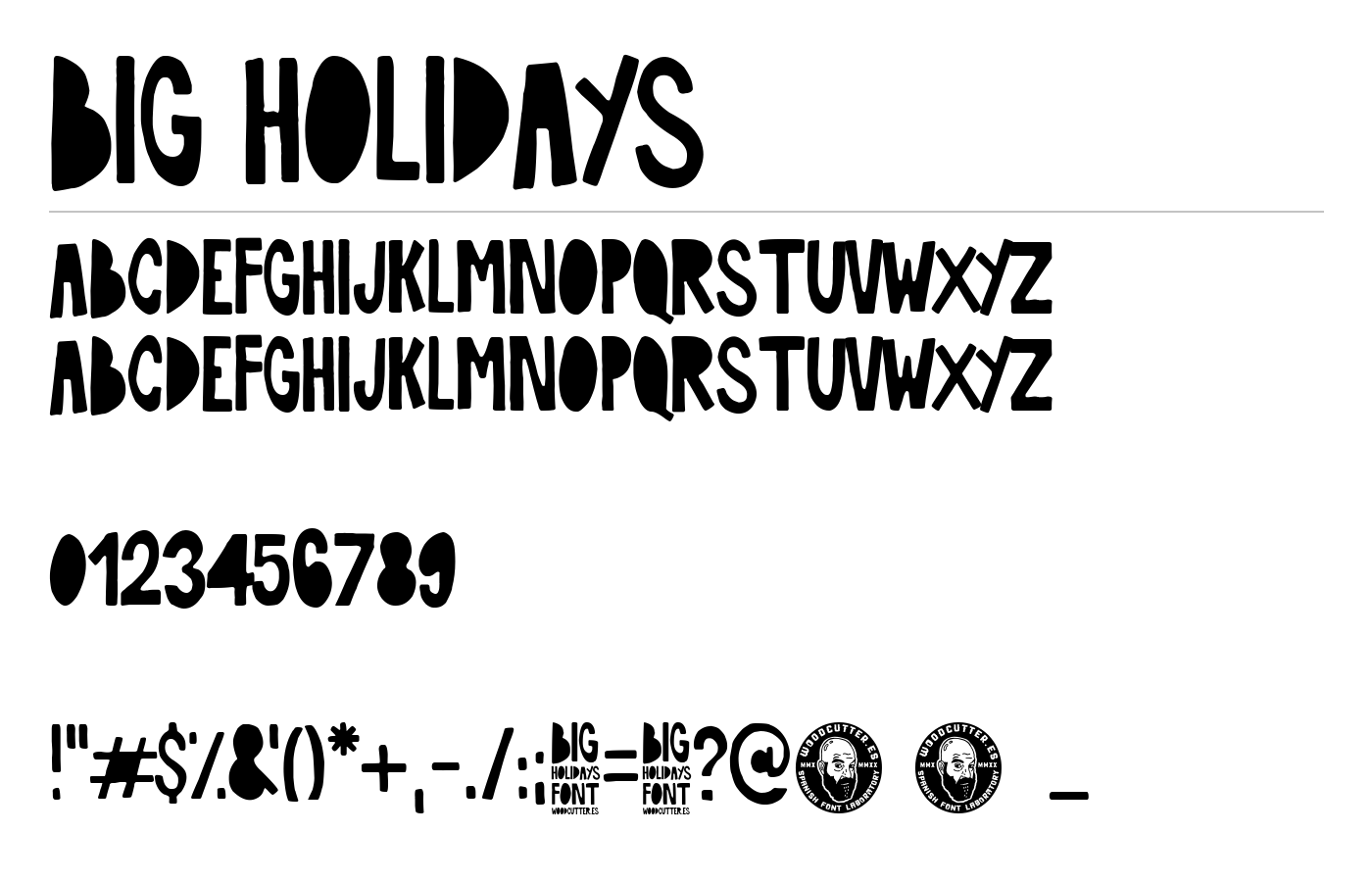
Big Holidays is a playful and bold display typeface with an irregular, hand-drawn feel that gives it a fun and informal personality. Its heavy weight, tall and varied letterforms, and quirky shapes make it perfect for eye-catching headlines, posters, and branding projects that want to convey creativity and approachability. This font works especially well for festive, casual, or youth-oriented designs where a lively and distinctive style is needed.
Big Holidays Font
About Big Holidays Font